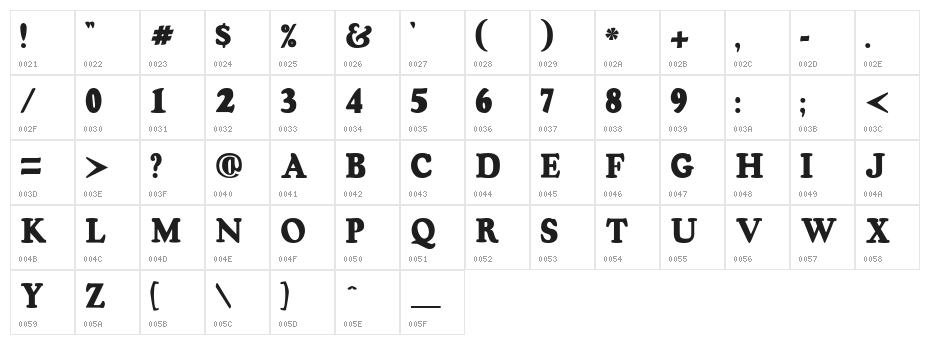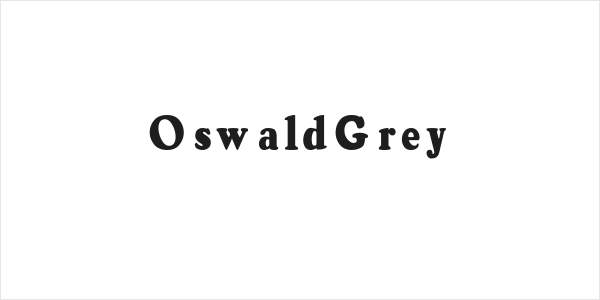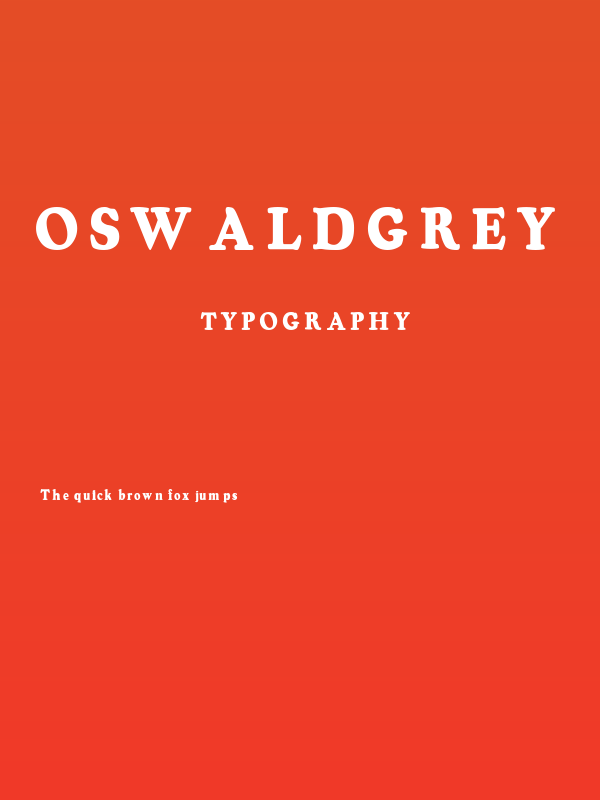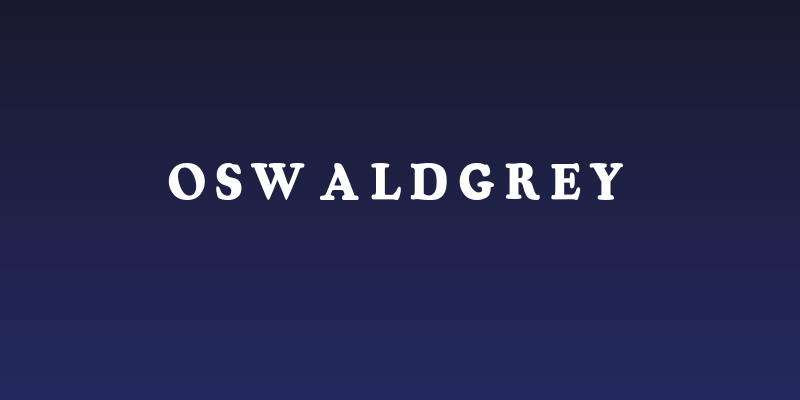
OswaldGrey Font
OswaldGrey Description
This font is characterized by its bold, impactful presence, featuring thick strokes and a strong serif design. The uppercase letters are robust and commanding, while the lowercase letters maintain a consistent weight, providing a harmonious balance. Numbers and special characters follow the same bold style, ensuring uniformity across all text. The serifs are pronounced, adding a touch of classic elegance to the overall modern aesthetic. The font's design is suitable for making statements, with its high contrast and clear readability.
| Proposed Projects | Ideal for headlines, posters, branding materials, and any project requiring a strong visual impact. |